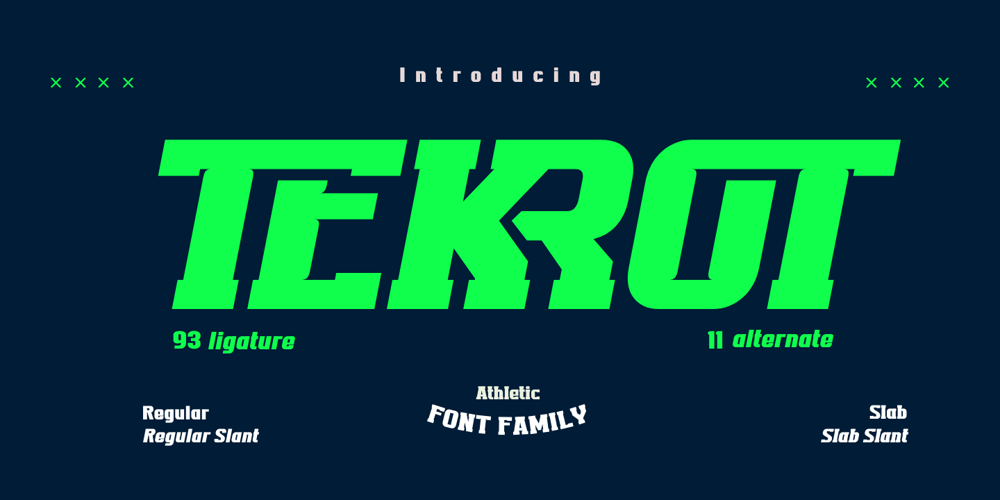
Tekrot
Tekrot font
Tekrot Font Family was designed by Rozikan and published by Twinletter. Tekrot contains 4 styles and family package options. Tekrot is a sporty, powerful, and elegant font, with a sporty style. Inspired by design styles that are currently popular, this is the answer to every need for ideas that you will pour in this modern era with a thick and sturdy style in each letter as if this font has a soul in it.Let your brand be as bold as you are with the Tekrot font. This font brings the quality of a sports team and athletic spirit to your designs, so whether you’re designing for all sports, or another message that calls for strength, this is the face for you.What’s Included :- All glyphs Iso Latin 1- Alternate, Ligature- Simple installations- We highly recommend using a program that supports OpenType features and Glyphs panels like many Adobe apps and Corel Draw so that you can see and access all Glyph variations.- PUA Encoded Characters – Fully accessible without additional design software.- Fonts include Multilingual support